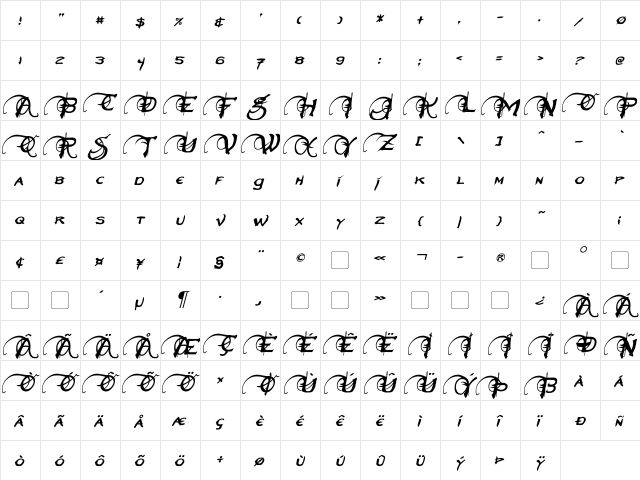
Neverwinter Italic
| Foundry | Neale Davidson |
| Designer | Neale Davidson |
Design Context for Neverwinter Typeface
Neverwinter is a composed and adaptable typeface that performs quietly and consistently across a wide range of design contexts. Its italic angle brings a sense of urgency and motion to the letterforms.
Pro Tip: Use Neverwinter for emphasis, pull quotes, and subheadings where its slanted energy can add rhythm to the layout.